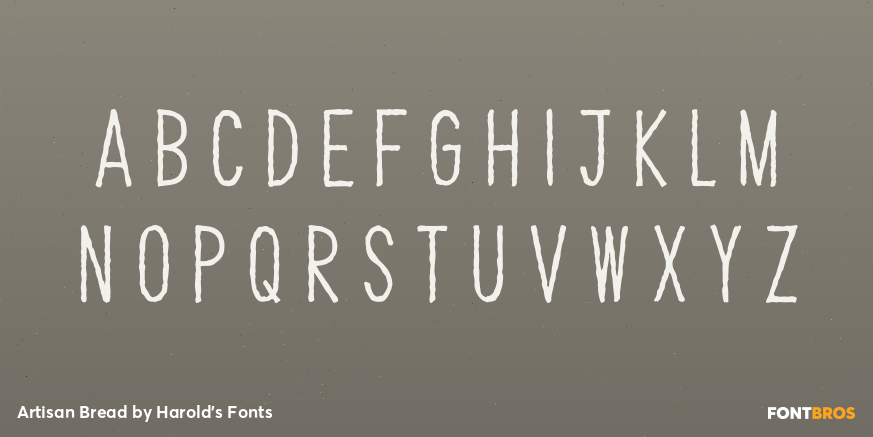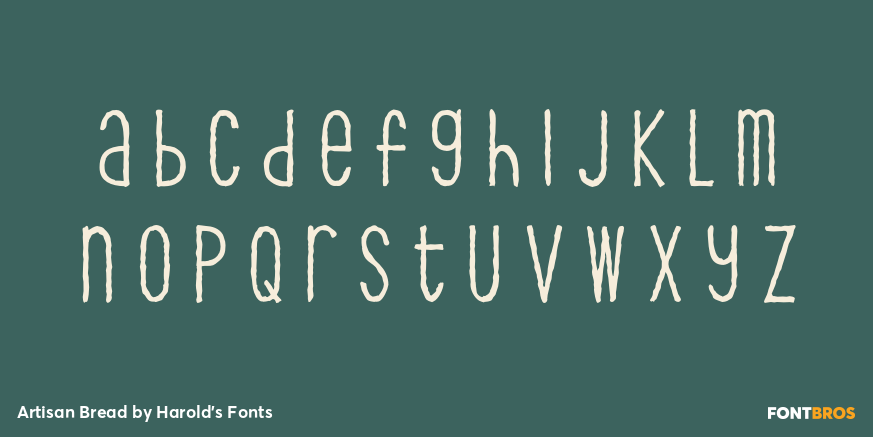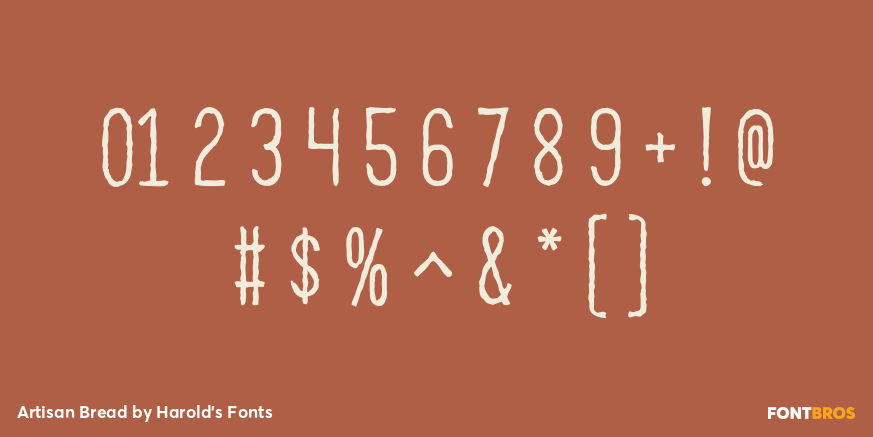
Artisan Bread
Font Family by Harold's Fonts
Artisan Bread has an earnest and informal feel. It provides a whimsical mixture of upper- and lowercase with a bumpy "organic" texture. Available in three weights.